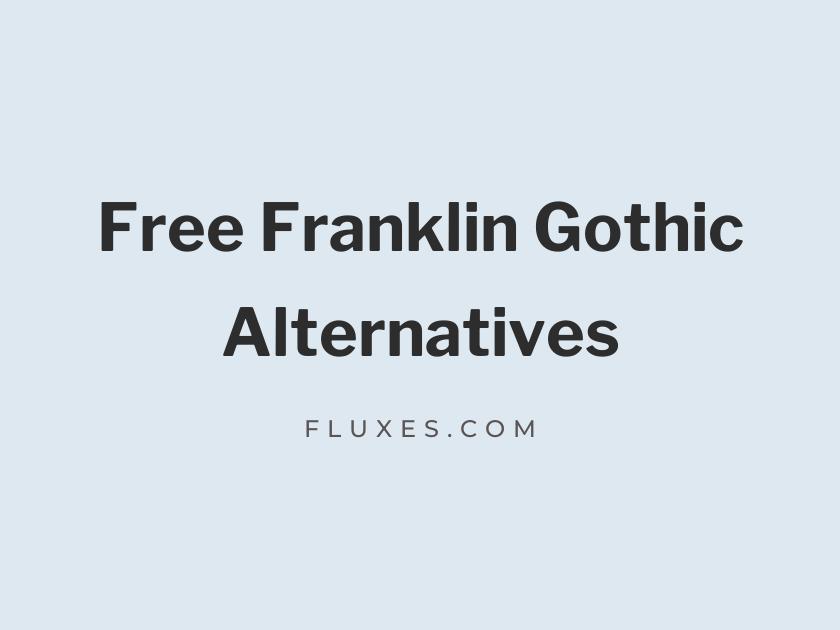
14 Best Free Fonts Alternatives to Franklin Gothic
Franklin Gothic has anchored American headline typography for more than a century, its blunt strokes and no-nonsense proportions showing up everywhere from newspaper mastheads to sports jerseys. Not every designer has access to the full commercial family, though, and licensing costs add up fast for a font this ubiquitous. Fortunately, the free fonts on Google Fonts have caught up considerably, offering grotesque and gothic sans options that capture the same industrial confidence without the price tag, making them solid picks for anyone hunting Franklin Gothic alternatives for web projects, branding, or editorial layouts.
1. Libre Franklin
Bold headlines built for the modern newsroom
This is the closest thing to a direct answer among free fonts: Libre Franklin was drawn as an open source revival of Franklin Gothic itself, expanding the original into a full variable family with nine weights and matching italics. If you need a drop-in replacement that keeps the historic proportions intact while adding modern web-friendly hinting, start here before looking anywhere else.
2. Archivo
Straightforward type for confident modern branding
Archivo brings a squarer, more contemporary grotesque structure that reads as slightly more geometric than Franklin Gothic but shares its sturdy, no-frills attitude. It performs well across a huge weight range, so a single family can carry a whole brand system from body copy to oversized display headlines.
3. Barlow Condensed
Fast, tight headlines for tight column widths
Barlow Condensed squeezes a lot of personality into a narrow footprint, making it a natural fit for the tight column widths of newspapers and sports scoreboards where Franklin Gothic Condensed traditionally lived. It stays crisp and readable even when set small, which is not something every condensed face can claim.
4. Fjalla One
Strong single-weight headlines for posters
Fjalla One only comes in one weight, so it will never replace Franklin Gothic across an entire system, but as a poster or headline face it has real punch. Its slightly rounded terminals soften the industrial edge just enough to feel current without losing the gothic backbone.
5. Oswald
Condensed headlines with a Franklin Gothic spirit
Oswald reworked classic gothic condensed forms for screen use and has become one of the most widely used free fonts for headlines online. It leans a touch more stylized than Franklin Gothic, so pair it with a plainer body text if the goal is a restrained, editorial look rather than a decorative one.
6. Anton
Heavyweight impact for bold sports headlines
Anton is built entirely for shouting: a single, ultra-bold condensed weight designed for headlines, banners, and anything that needs to dominate a page. It shares Franklin Gothic Extra Condensed’s density but pushes further into pure display territory, so keep it away from body text and small captions.
7. Roboto Condensed
Reliable narrow type for data-heavy layouts
Roboto Condensed offers a dependable, slightly humanist alternative for designers who want gothic proportions without quite as much visual weight as Franklin Gothic carries. It handles dense tables, captions, and infographic labels with unusual grace, and it pairs comfortably with regular Roboto for body copy.
8. Saira Condensed
Modern condensed type for editorial front pages
Saira Condensed feels engineered rather than drawn, with clean mechanical curves that suit dashboards, editorial front pages, and technical branding equally well. It is part of a much larger Saira superfamily, so there is room to grow into wider or more expanded cuts later if a project needs it.
9. Public Sans
Plainspoken text for government style clarity
Developed originally for U.S. government digital services, Public Sans was built for maximum legibility and neutrality above all else. It lacks some of Franklin Gothic’s character but makes up for it with exceptional clarity at body text sizes, a good choice when the priority is accessible, unfussy communication.
10. Work Sans
Everyday text with a grotesque backbone
Work Sans was optimized specifically for on-screen reading at text sizes, borrowing its proportions loosely from early grotesques in the Franklin Gothic lineage. It is a workhorse rather than a showpiece, which makes it an excellent body companion for a bolder gothic display face used in headlines.
11. PT Sans
Sturdy grotesque type for print and web
PT Sans carries a slightly warmer, more humanist touch than Franklin Gothic but keeps enough grotesque sturdiness to feel at home in news and editorial contexts. Its bold weight in particular holds up well in print, so it suits projects that need to move between digital and physical layouts.
12. Encode Sans
Versatile grotesque type across nine widths
Encode Sans stands out for sheer range, spanning from ultra condensed to expanded widths across multiple weights, all in one coordinated system. That flexibility makes it useful for designers who want the gothic sans feeling of Franklin Gothic but need a single family to cover headlines, captions, and everything between.
Pair any bold display choice with a calmer text face such as Work Sans or Public Sans to keep long paragraphs readable.
Always check a font at the actual sizes it will be used, since some condensed and heavy gothic styles can turn muddy in small captions or dense body copy.
These free fonts prove that the grotesque gothic tradition Franklin Gothic helped define is alive and well on Google Fonts, giving designers plenty of room to download, test, and build a system that fits their brand without touching a licensing fee.